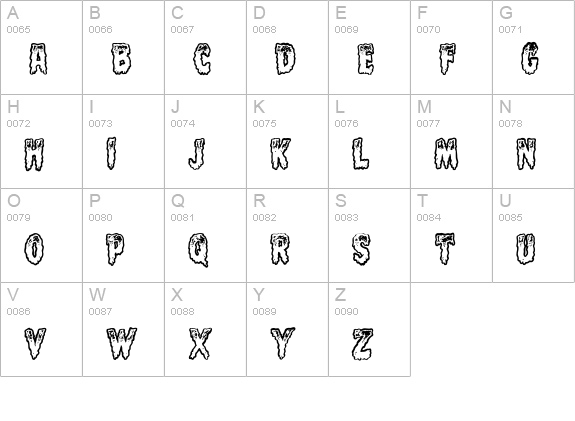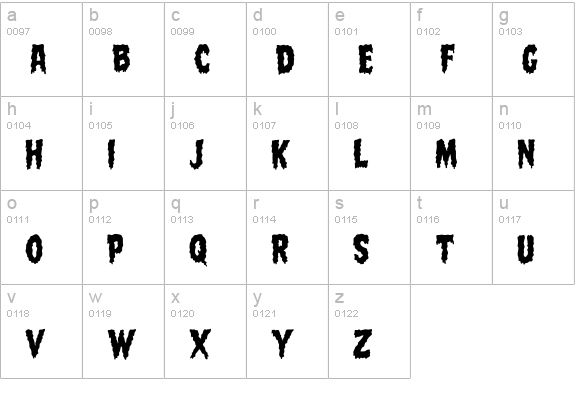
CCMeltdown Font Details
CCMeltdown font is a captivating and edgy typeface that exudes a sense of energy and excitement. With its unique and dynamic design, this font is perfect for projects that require a bold and modern look. The jagged edges and distressed style of CCMeltdown font give it a raw and rebellious feel, making it perfect for posters, album covers, and other creative designs. The best part is that CCMeltdown font is available for free download at FontsMarket.com. So, whether you're a designer looking to add some edge to your projects or just someone who appreciates unique and eye-catching fonts, CCMeltdown is a fantastic choice that won't cost you a thing. Download it today and let your creativity run wild with this striking and free font.